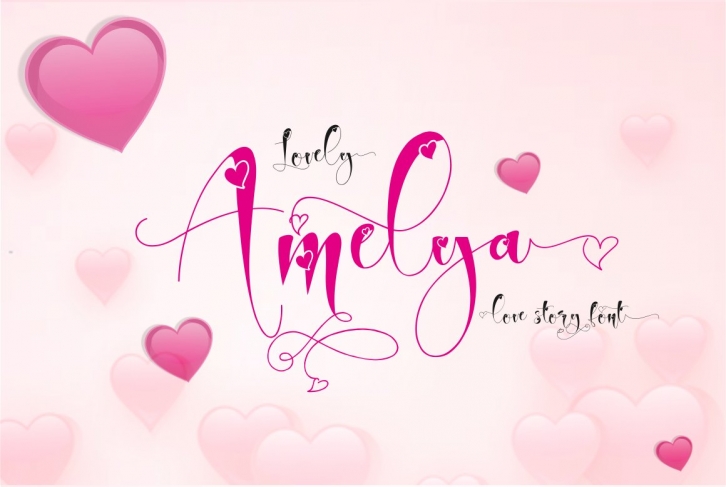
Lovely Amelya is a trendy and unique font with an authentic style. It was designed by Malindo Creative and it's a great choice for creative people who need such a font. It was released on September 1, 2020 and the file size is 15.94 MB. Lovely Amelya will add an organic vibe to any design idea!